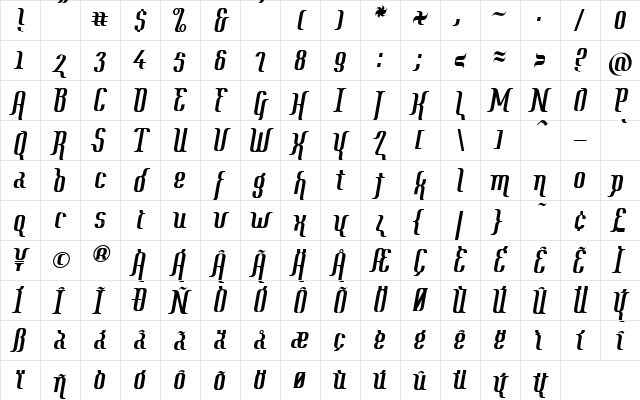
Year2000 Context Deluxe Regular
Designer: Koen Hachmang
Design Context for Year2000 Context Deluxe
Year2000 Context Deluxe is a composed and adaptable typeface that performs quietly and consistently across a wide range of design contexts.